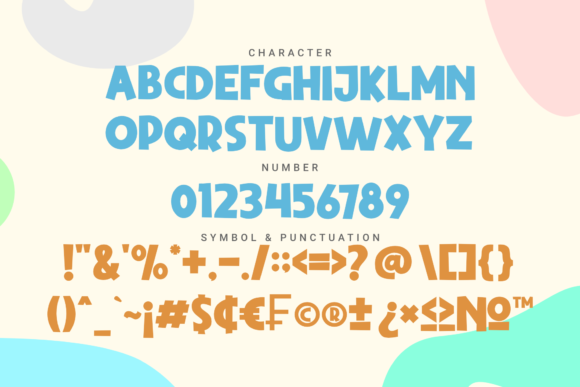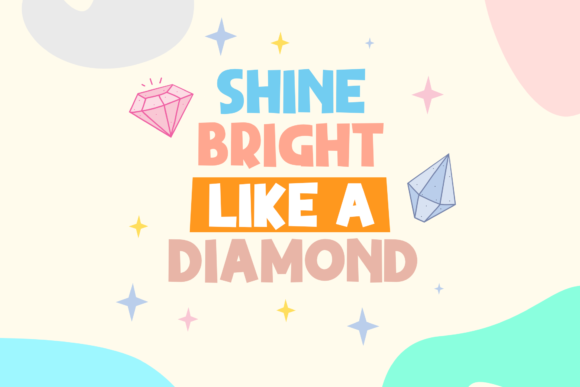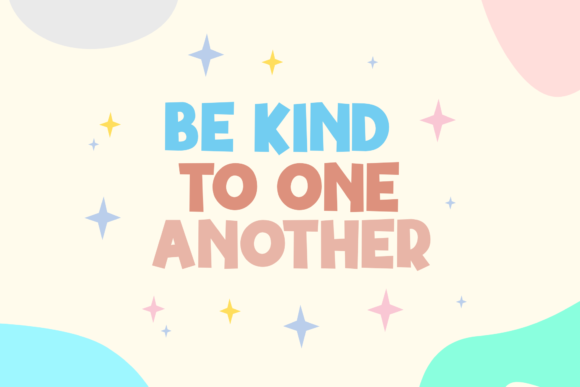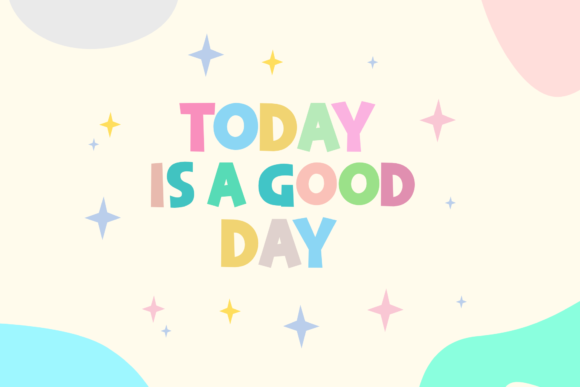
Introduction to Chunky Chicken Font
Chunky Chicken is a cute yet chunky lettered display font.
Its unique shape is very suitable for game designs, animation, product packaging, posters, sports, music and much more .
Key Features of Chunky Chicken Font